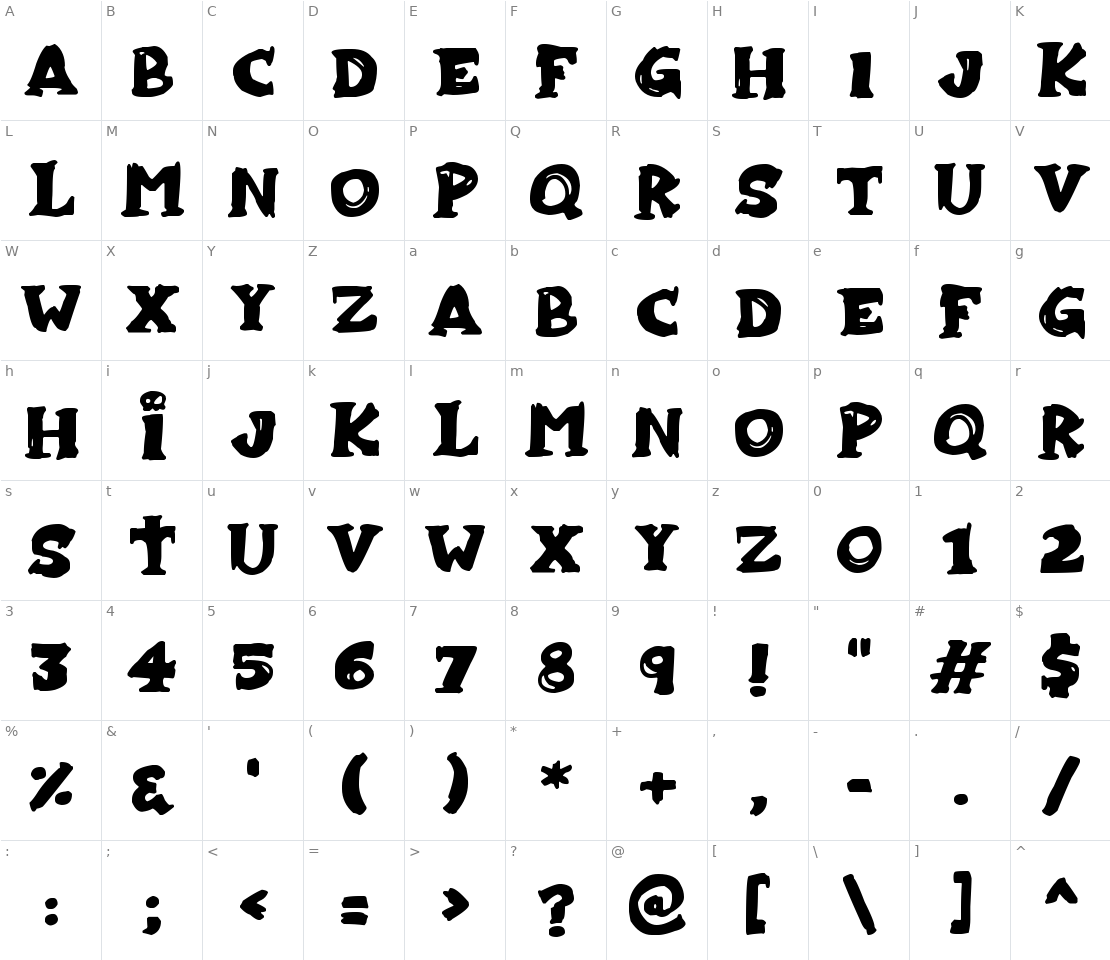
Zombiebites
by Darrell Flood
Zombiebites is a chunky, creepy display face from Darrell Flood with letterforms that look gnawed and rotting, every character dripping with undead energy. The bold weight and ragged details make it an obvious pick for Halloween posters, horror game titles, and zombie-themed anything where subtlety would be beside the point. Best kept big, where all that grotesque texture can do its work.